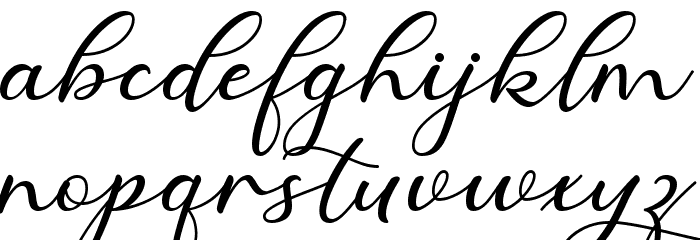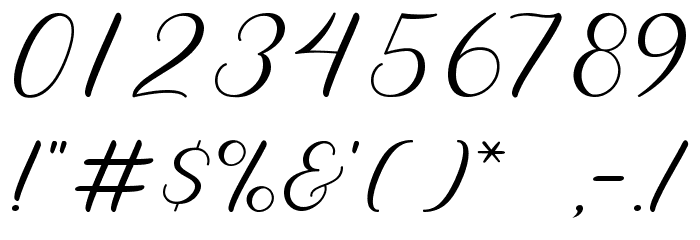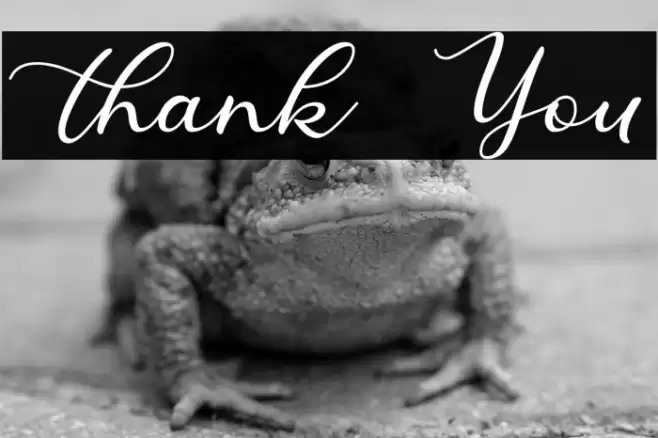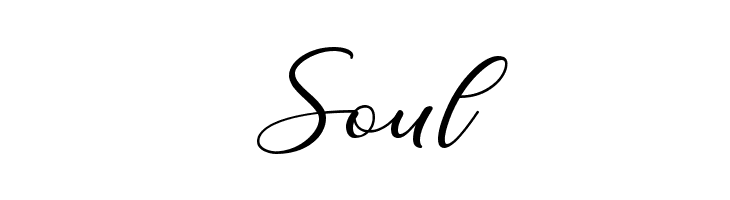
Thank You Font
This elegant script font features fluid, cursive strokes that convey a sense of sophistication and grace. The uppercase letters are slightly more ornate, with sweeping curves and loops, while the lowercase letters maintain a consistent flow, enhancing readability. The numerals are designed with a similar flair, ensuring they complement the alphabetic characters seamlessly. Special characters are crafted with the same attention to detail, making them suitable for various design contexts. This font's overall aesthetic is both classic and modern, making it versatile for numerous applications.
A graceful script font with fluid, cursive strokes and elegant detailing.
- Proposed Projects: Ideal for wedding invitations, elegant branding, greeting cards, and upscale packaging.
- Category: Script
- Overall Style: Elegant, Classic
- Use Case: Logos, Invitations, Branding